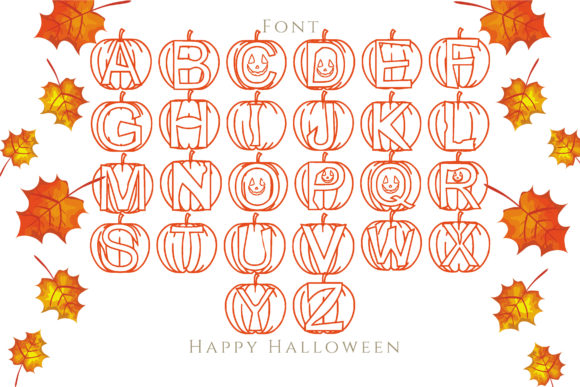
Embark on a typographic adventure with Chili Pumpkin Font, a decorative font that captivates with its spooky charm and playful spirit. Inspired by the essence of Halloween and the warmth of Thanksgiving, this font is an artistic playground for your creative expressions. Each letter dances with delight, embodying the magic of the season. Unleash your imagination and let the Chili Pumpkin Font transform your designs into captivating masterpieces.
With Chili Pumpkin Font, you hold the key to unlocking a world of visual intrigue. Its unique character set, adorned with intricate swirls and playful serifs, invites you to explore new horizons of design. Whether you're crafting invitations for a Halloween soirée, creating posters for a Thanksgiving feast, or simply adding a touch of whimsy to your digital creations, Chili Pumpkin Font is your steadfast companion.
As you delve into the depths of this font, you'll uncover a treasure trove of possibilities. Its versatility extends beyond seasonal designs, making it an ideal choice for projects that demand a touch of individuality and charm. From eye-catching logos and branding materials to social media graphics and website designs, Chili Pumpkin Font seamlessly adapts to your creative vision.
Immerse yourself in the boundless creativity of Chili Pumpkin Font and elevate your designs to new heights. Its captivating curves and enchanting details weave a spellbinding narrative that draws your audience into a world of wonder. Prepare to be mesmerized as your words dance across the page, infused with the magic of this remarkable font.
Embrace the enchanting world of Chili Pumpkin Font and let your imagination run wild. Its versatility and charm will ignite your creativity, transforming your designs into captivating works of art. Embark on this typographic journey and discover the limitless possibilities that await you.